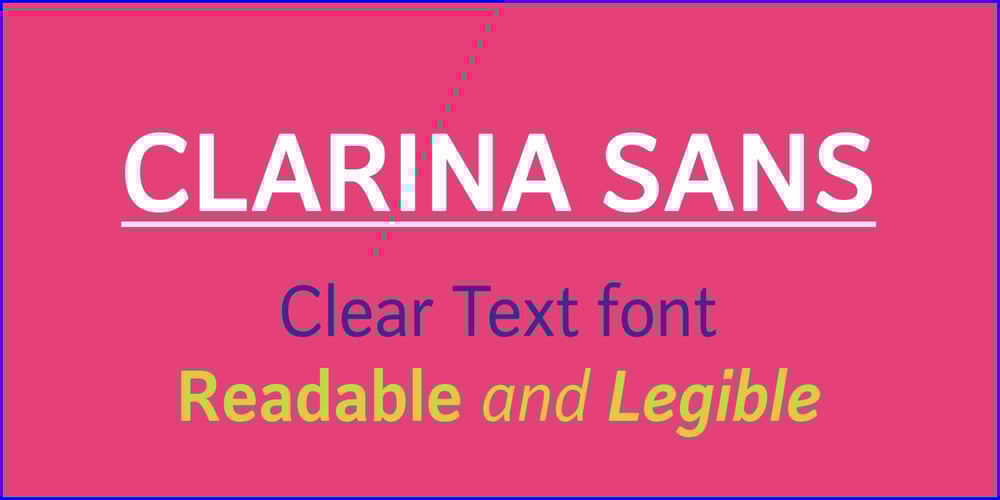
Clarina Sans Font Family was designed by Sudarmaji and published by Asritype. Clarina Sans contains 4 styles and family package options. As the name, Clarina Sans is sans serif type family with two weight plus matching italics. Clarina Sans was desinged in 2018/19, influenced by geometrics typeface from handbook and newspapers in 80’s during studying that have a good legibility. Clarina sans with medium to high x-heigh and geometric correction and smoothed corner has more elegant visibility, readable, and save space altogether. Its perfect for book, newspaper, web, logos, magazines, posters, and most other design. Equiped with more than 700 glyphs for eachs cut (latin plus, greek, cyrillic), ligatures, kerning, case sensitive for diacritical mark modifier, Clarina Sans has wide range languages coverage.